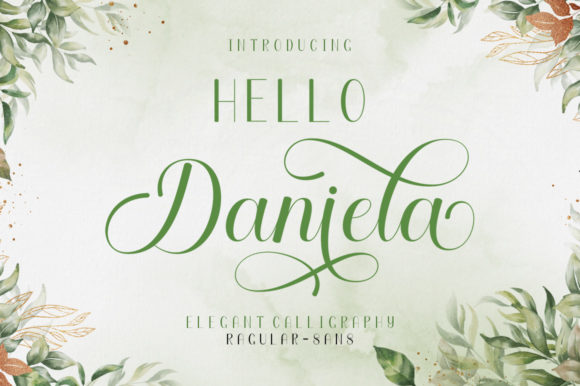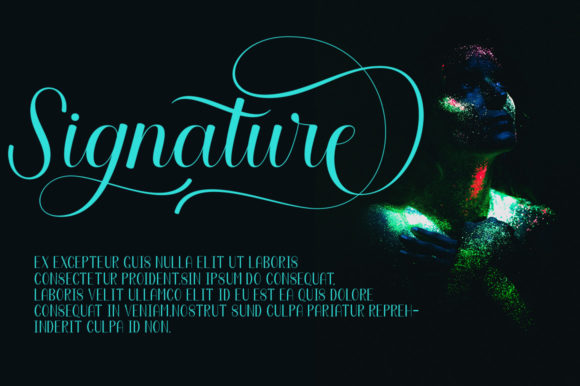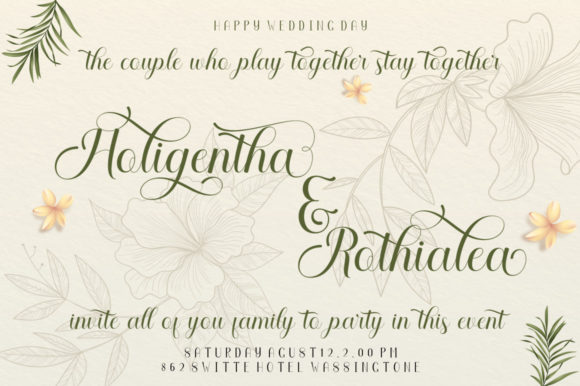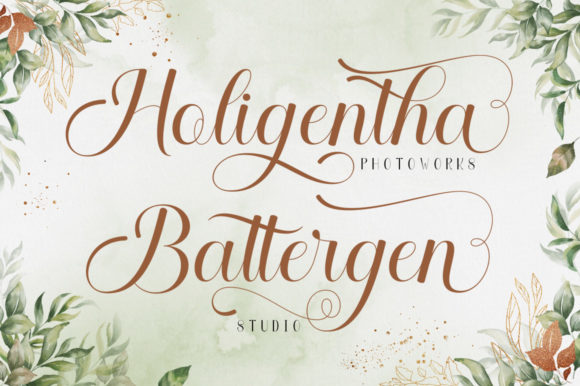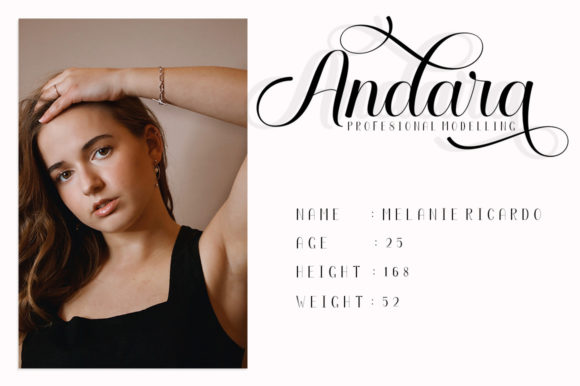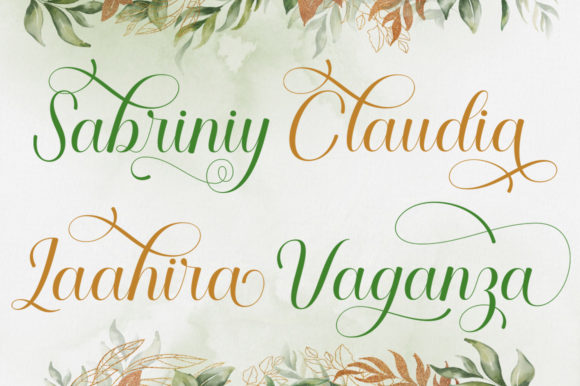
Introducing Daniela Font: Elevate Your Designs with Luxury and Versatility
Are you a designer or crafter looking for a font that can add a touch of luxury to your projects? Look no further than Daniela Font, a stunning duo font that combines the elegance of script with the modernity of sans serif. This versatile font is perfect for a wide range of design applications, from branding and packaging to wedding invitations and digital marketing materials.
A Beautiful Combination: Script and Sans Serif
Daniela Font is a unique duo font that pairs a beautiful script font with a clean sans serif font. The script font is perfect for adding a touch of elegance and sophistication to your designs, while the sans serif font provides a modern and crisp contrast. This combination makes Daniela Font incredibly versatile and suitable for a wide range of design projects.
Add a Luxury Spark to Your Designs
With Daniela Font, you can add a luxury spark to any design project. The font’s elegant script and modern sans serif combination make it perfect for high-end branding, packaging, and marketing materials. Whether you’re designing a logo, brochure, or website, Daniela Font is sure to make your project stand out.
One of the best features of Daniela Font is that it’s PUA (Private Use Area) encoded. This means that you can access all of the amazing glyphs and ligatures with ease, without having to worry about complicated font editing software. With Daniela Font, you can simply type in the characters you need, and the font will take care of the rest.
Daniela Font is perfect for designers and crafters who want to add a touch of luxury to their projects. Whether you’re a professional designer or a DIY crafter, this font is easy to use and provides a wide range of creative possibilities. With Daniela Font, you can create stunning designs that are sure to impress your clients or customers.
What You Can Create with Daniela Font
The possibilities are endless with Daniela Font. Here are just a few ideas to get you started:
- Branding and Packaging: Use Daniela Font to create stunning logos, business cards, and packaging materials that will help your brand stand out.
- Wedding Invitations: Add a touch of elegance and sophistication to your wedding invitations and stationery with Daniela Font.
- Digital Marketing Materials: Use Daniela Font to create eye-catching social media graphics, email newsletters, and website headers.
- Crafting and Scrapbooking: Use Daniela Font to add a personal touch to your crafting and scrapbooking projects.
Why Choose Daniela Font?
There are many fonts on the market that claim to be versatile and luxurious, but Daniela Font stands out from the crowd. Here are just a few reasons why:
- Unique Combination: Daniela Font’s unique combination of script and sans serif makes it a standout font that will add a touch of luxury to any design project.
- PUA Encoded: With PUA encoding, you can access all of the amazing glyphs and ligatures with ease.
- Ease of Use: Daniela Font is easy to use, even for designers and crafters who are new to font editing software.